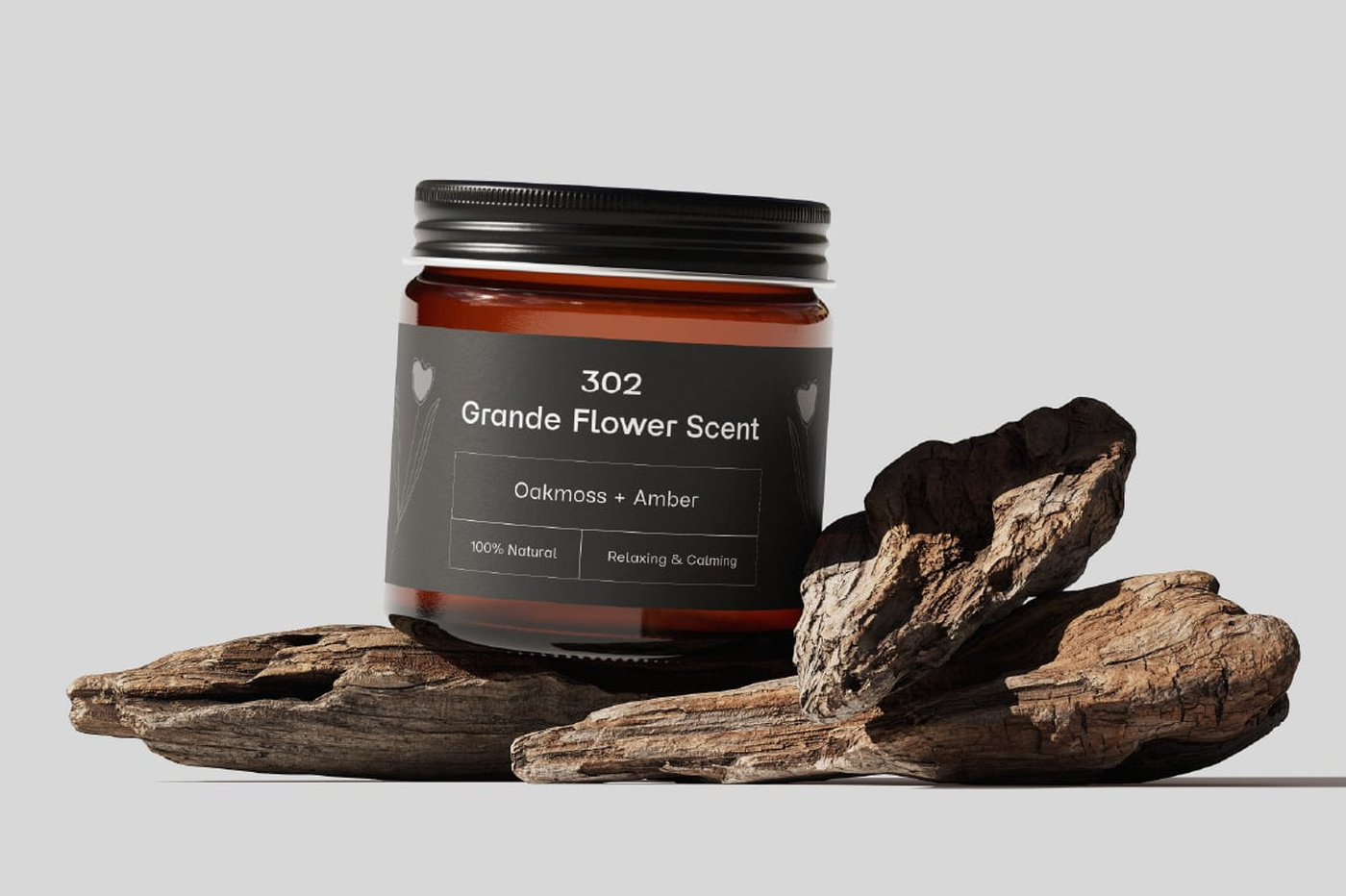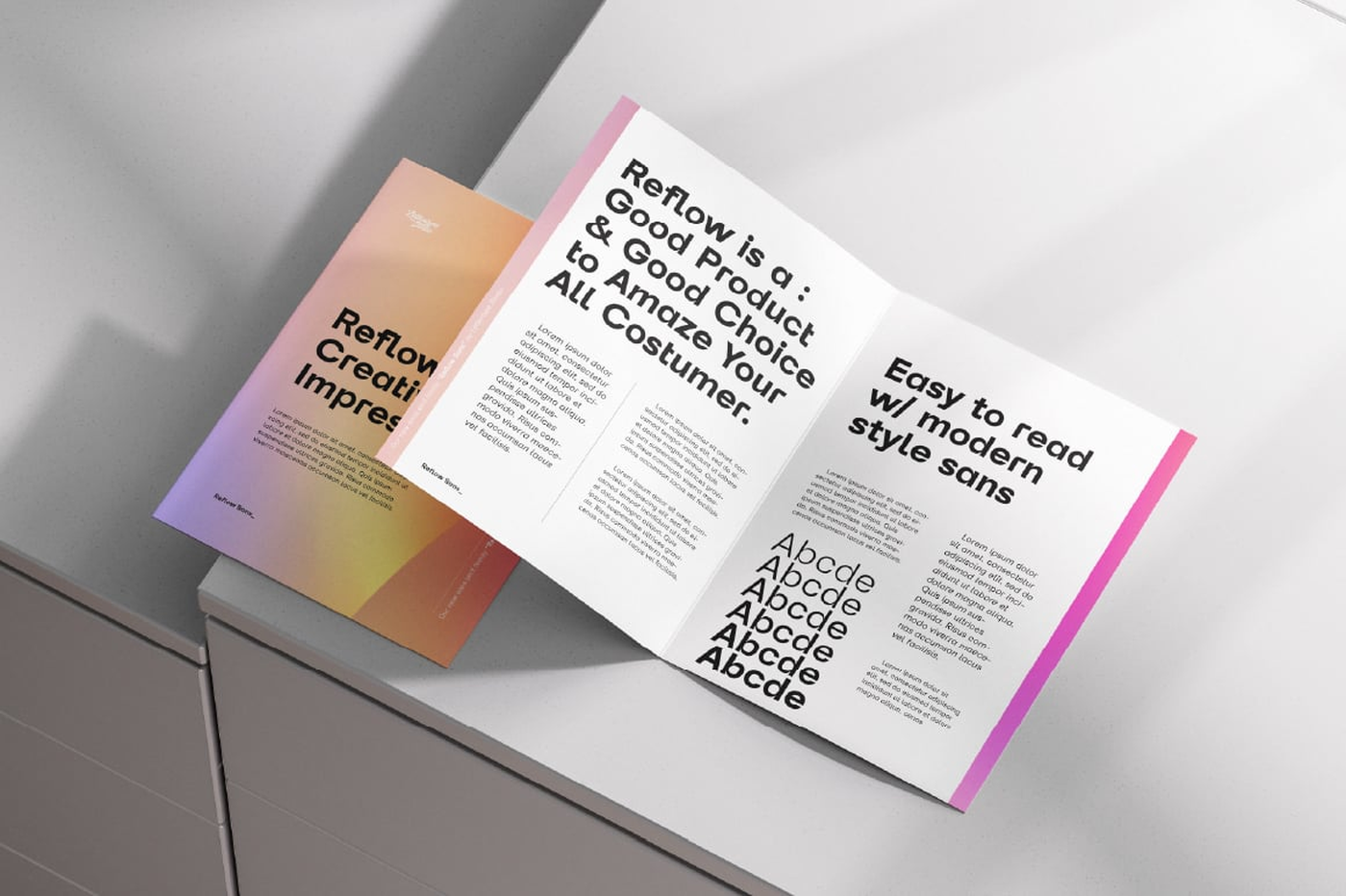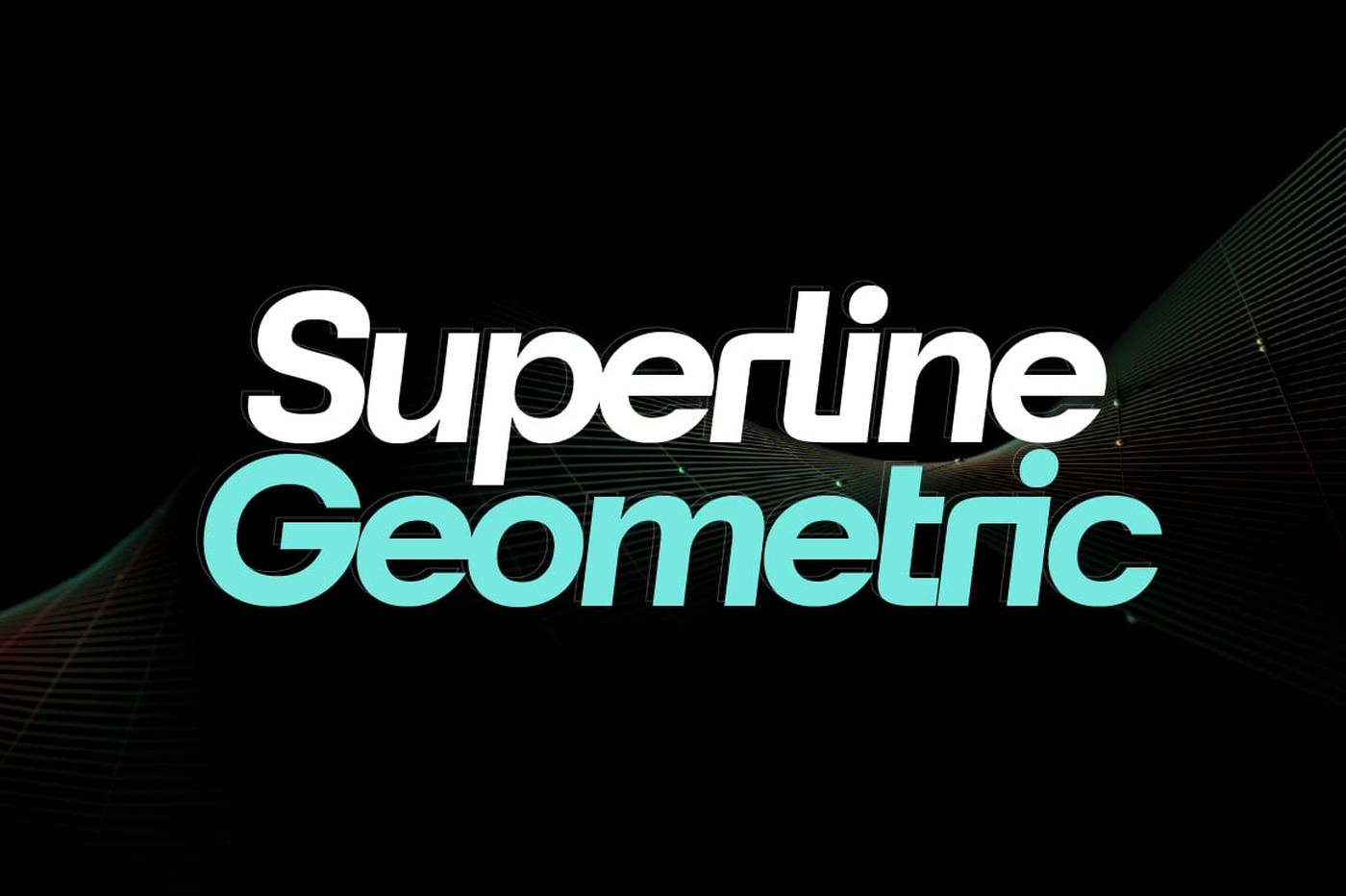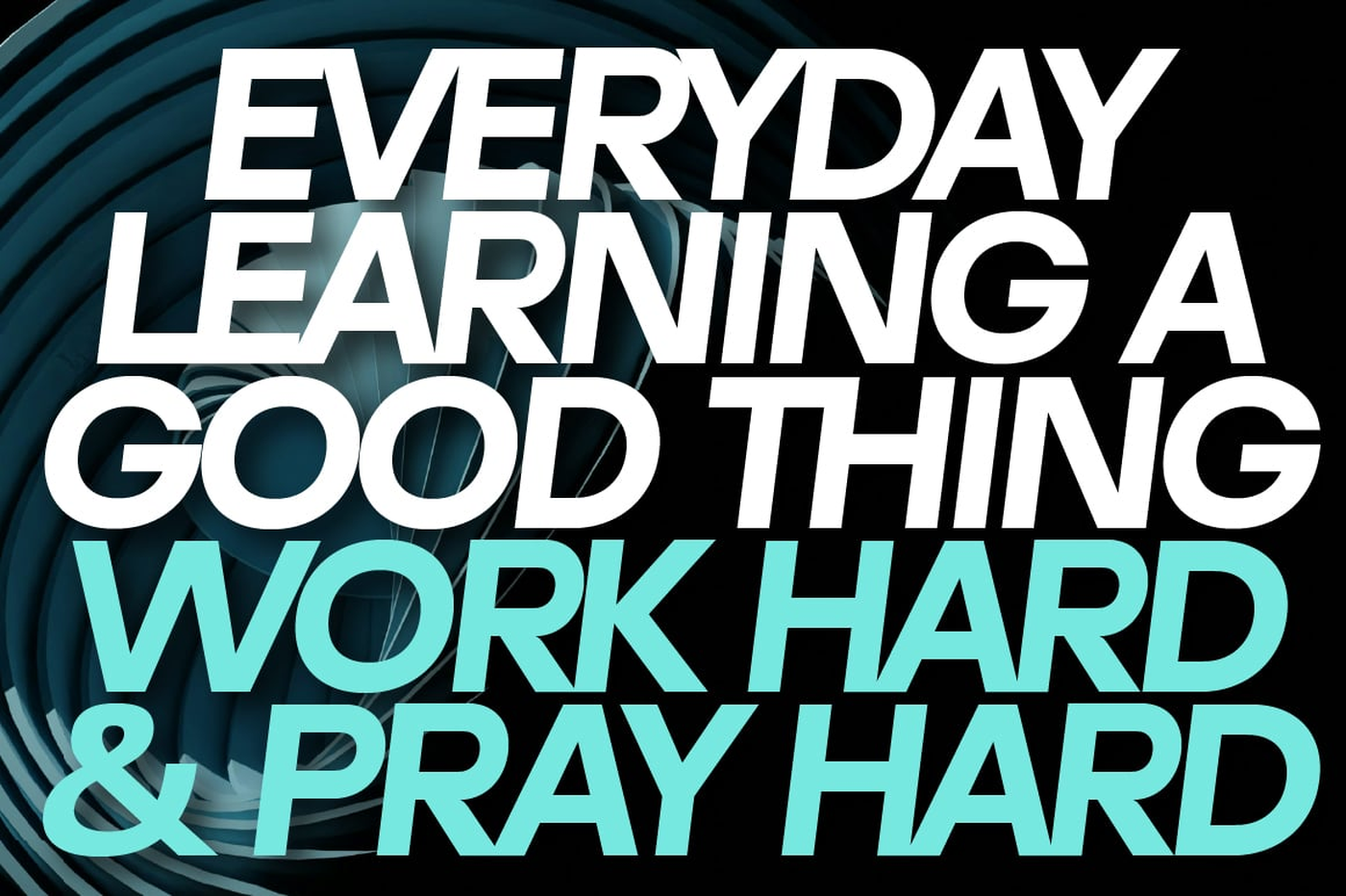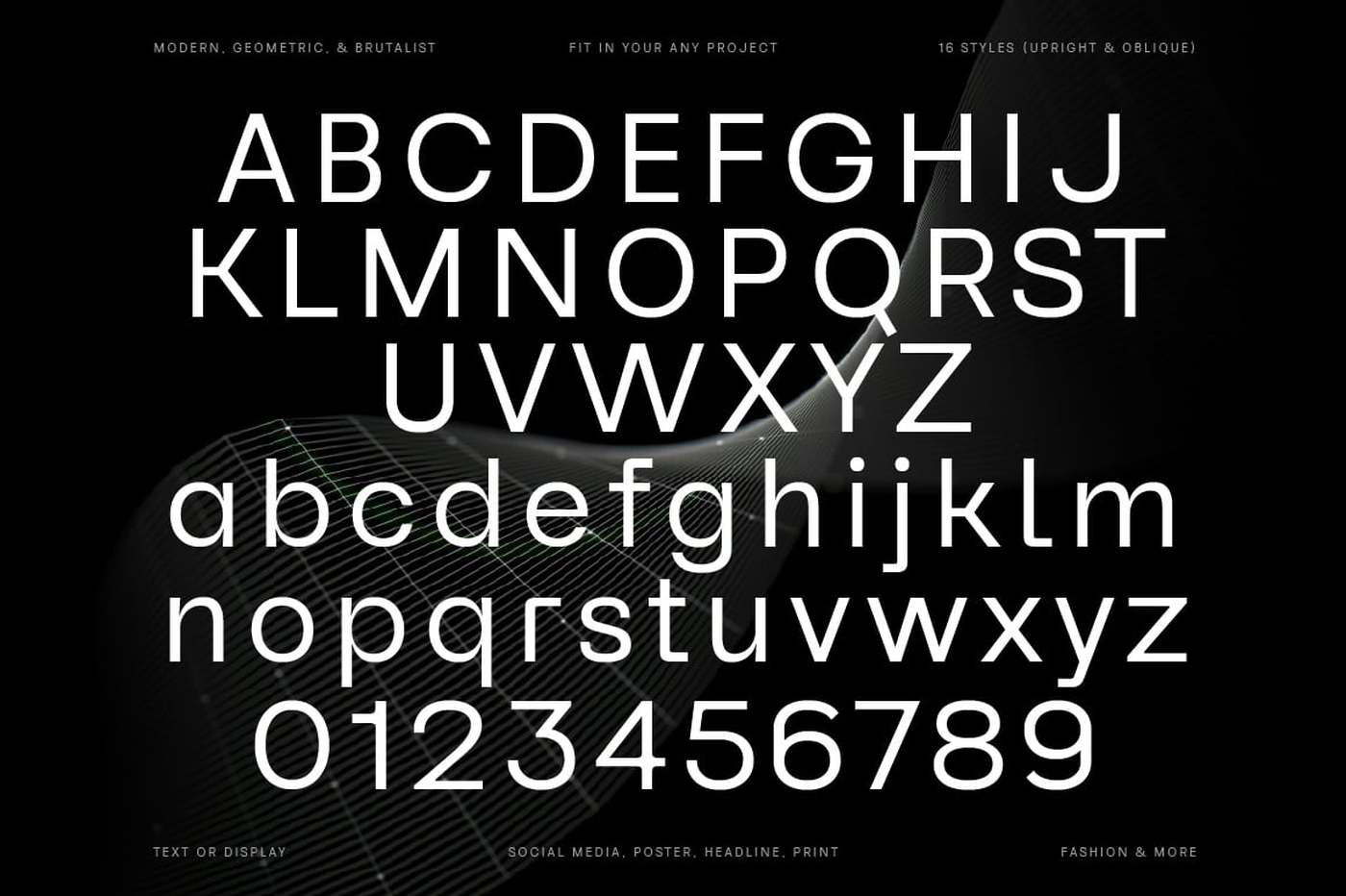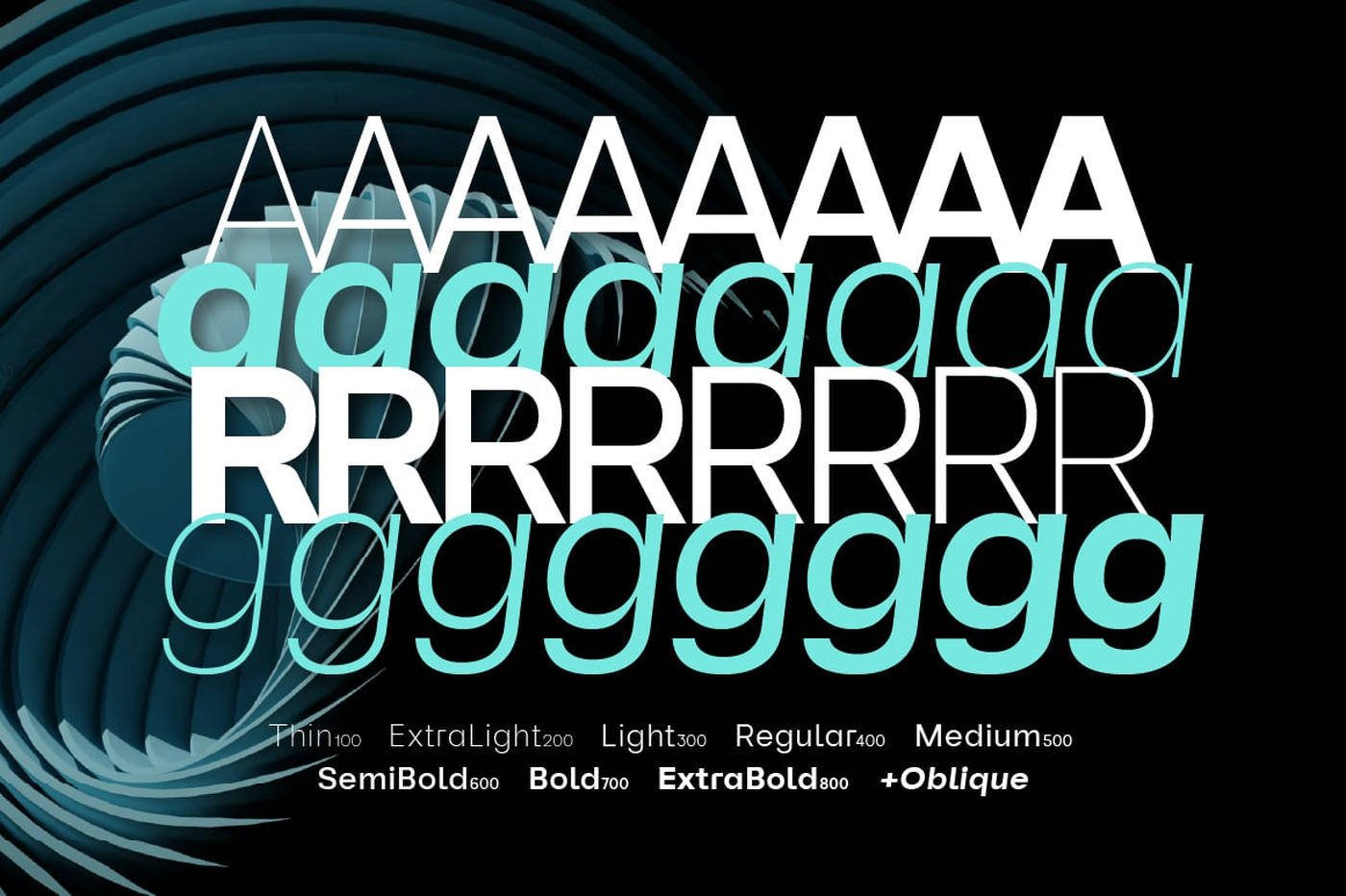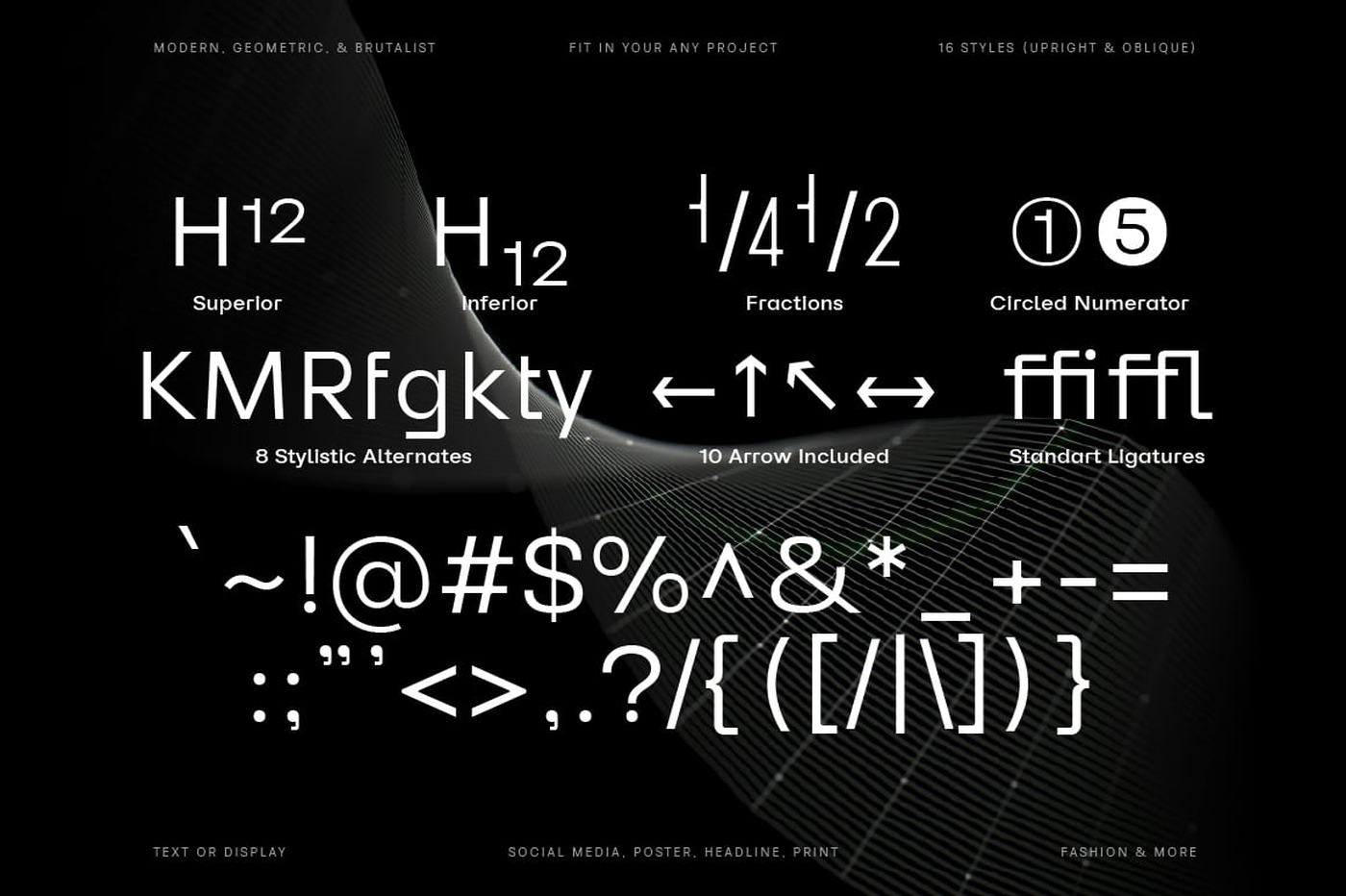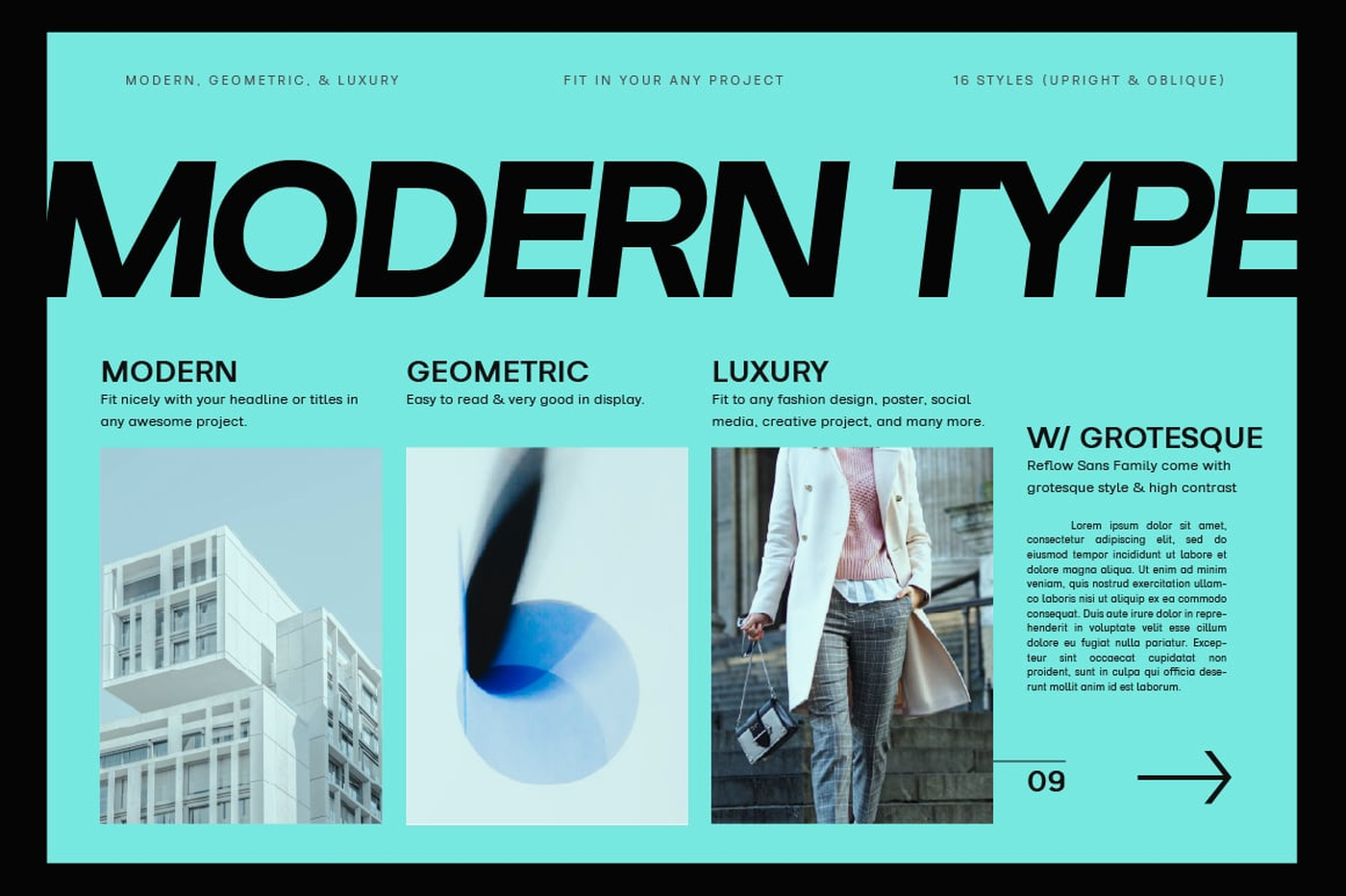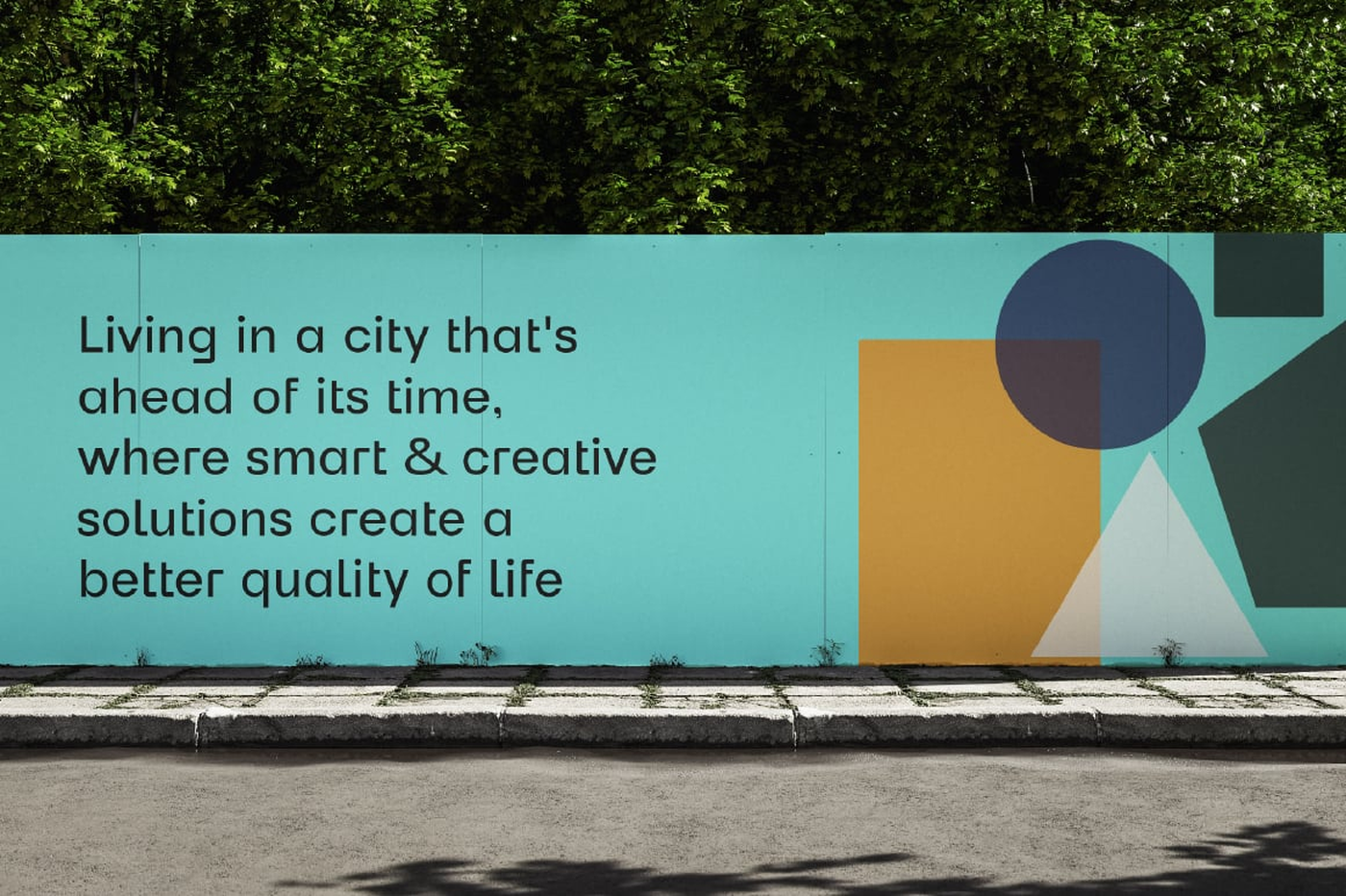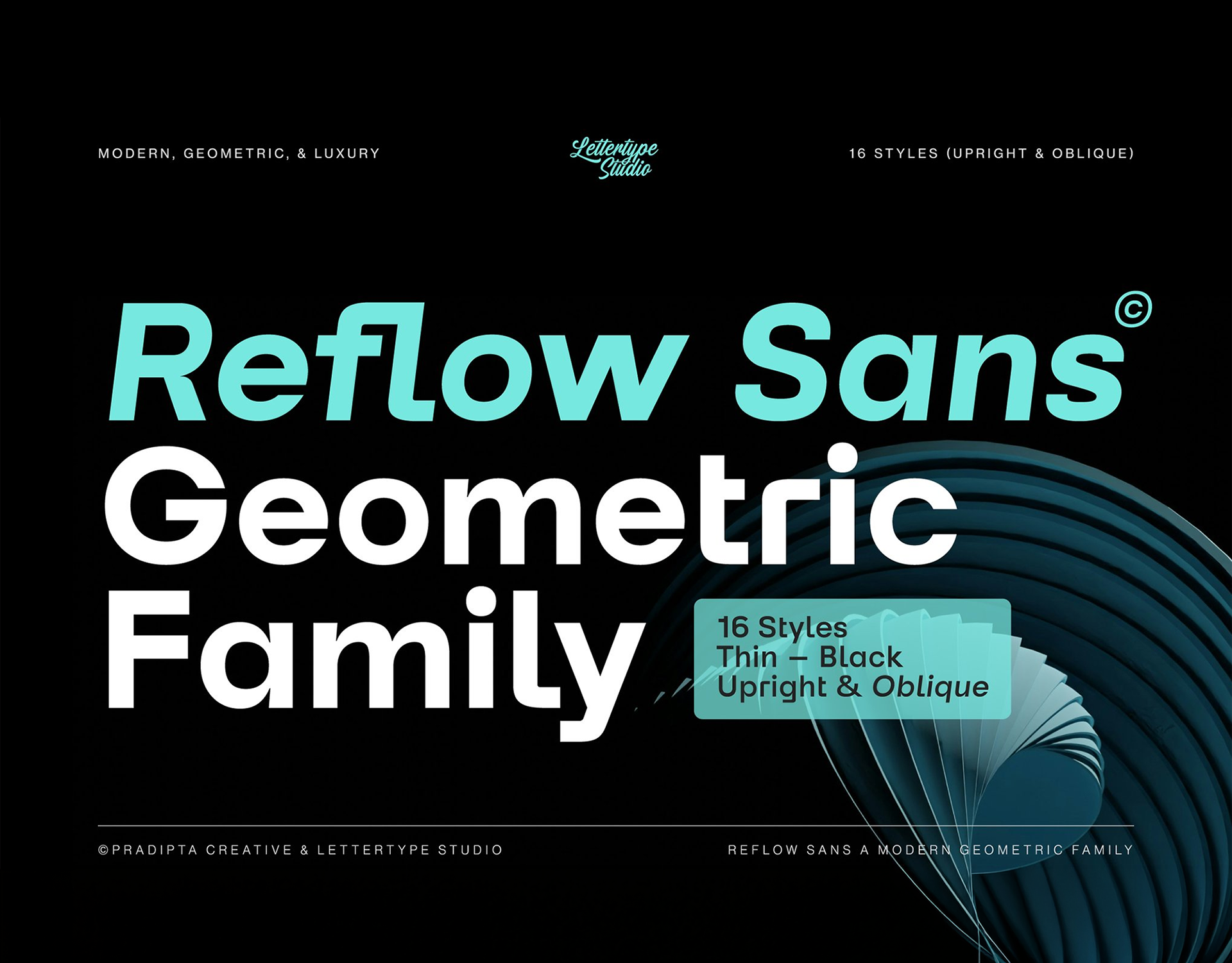
Reflow Sans - Geometric Font Family
Reflow Sans is a modern and versatile sans-serif geometric typeface infused with subtle grotesque elements and high contrast. It delivers simplicity and naturality while exuding a strong personality with refined proportions. Designed for readability and versatility, this font family balances clean, brutalist style and geometric precision with the warmth and flexibility of grotesque design. There is a wide range of weights, from thin to ExtraBlack, including 16 weights in Upright and oblique styles. OpenType features include stylistic alternates (K, M, R, f, g, k, t, & y), figure variations (superiors, inferiors, fractions, circled numerators, arrows, and standard ligatures), and broad Latin language support.
Font: Reflow Sans